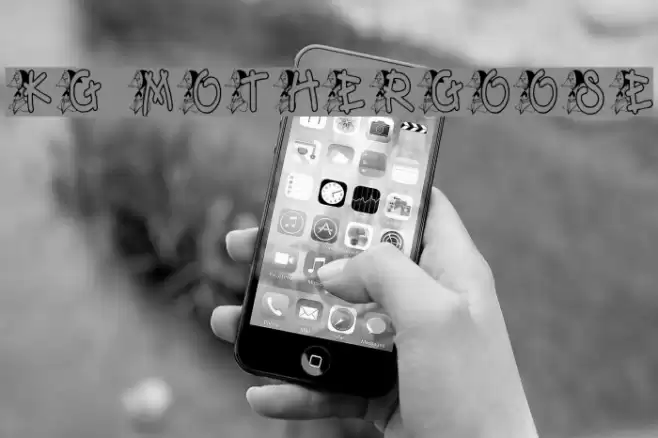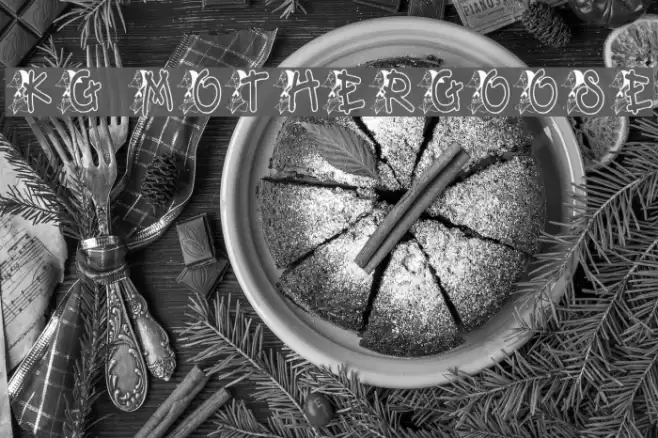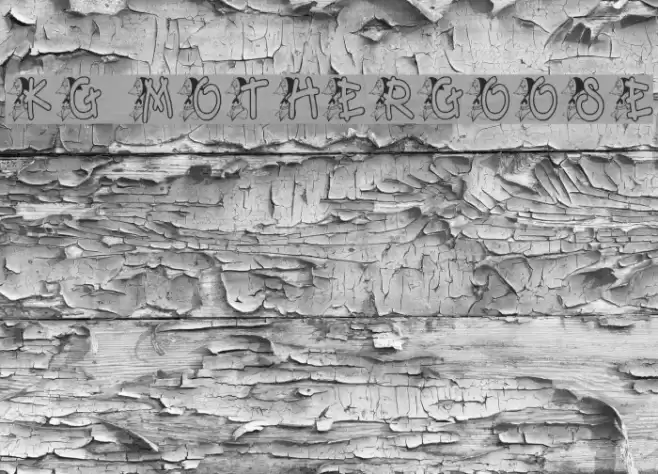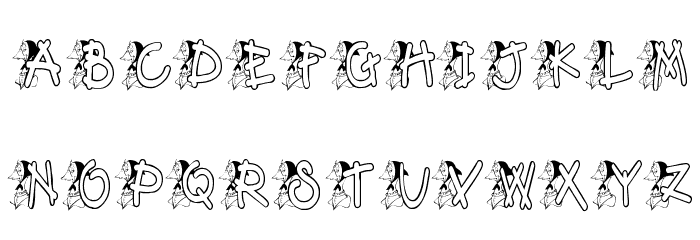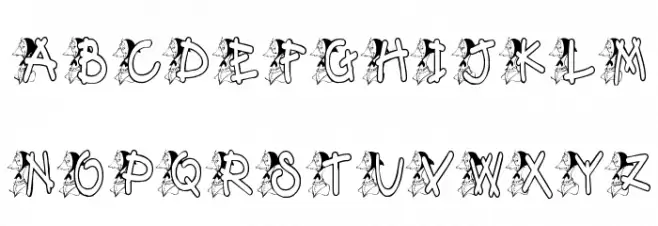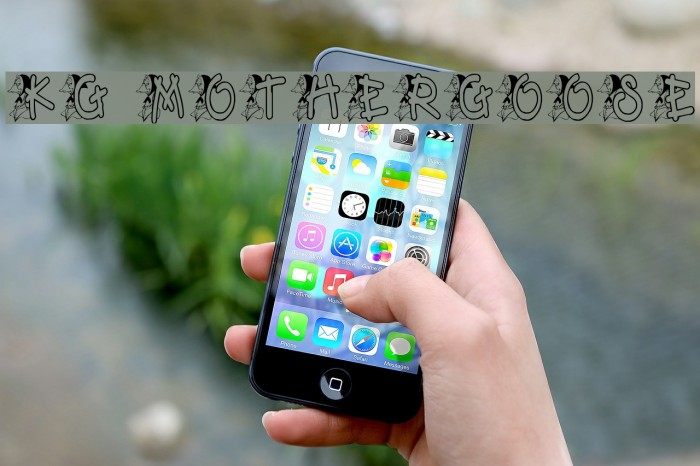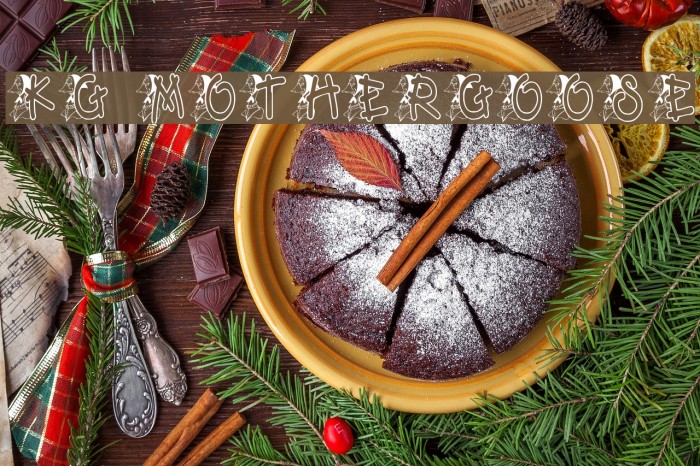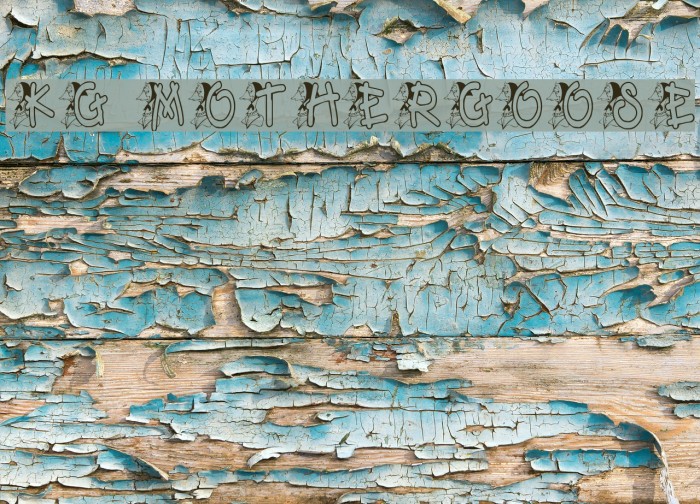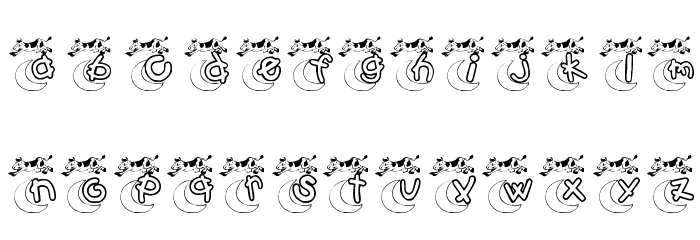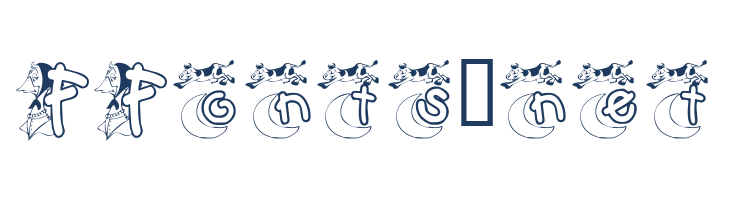
KG MOTHERGOOSE Font
KG MOTHERGOOSE Description
This whimsical and playful font features a unique design where each character is adorned with charming illustrations of nursery rhyme elements, such as Mother Goose and crescent moons. The uppercase letters are bold and decorative, each incorporating a detailed illustration that adds a storybook feel. The lowercase letters continue this theme, with each character creatively integrated into the design. The font is highly decorative, making it ideal for projects that require a touch of nostalgia and fantasy. Its intricate design may not be suitable for small text but shines in larger displays.
A whimsical, illustrated font inspired by nursery rhymes, perfect for decorative uses from Uncategorized fonts.
- Proposed Projects: Ideal for children's book covers, nursery decor, themed invitations, and playful branding.